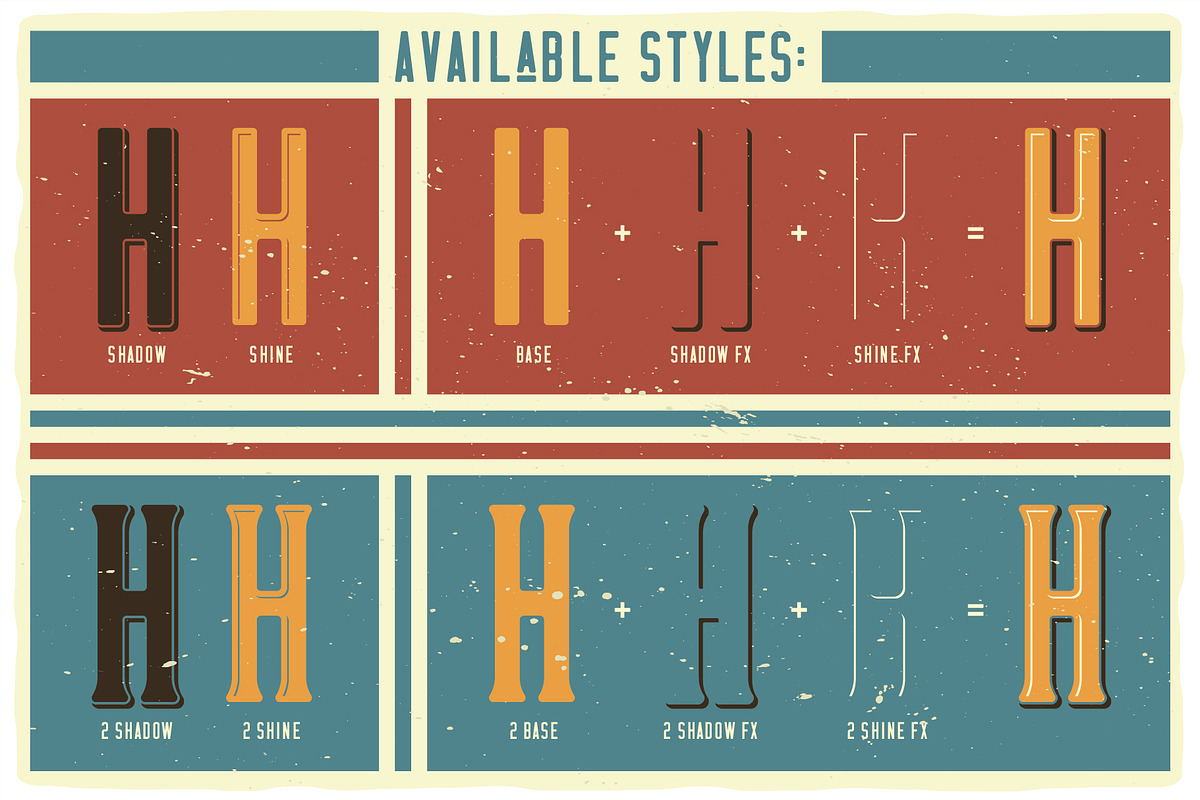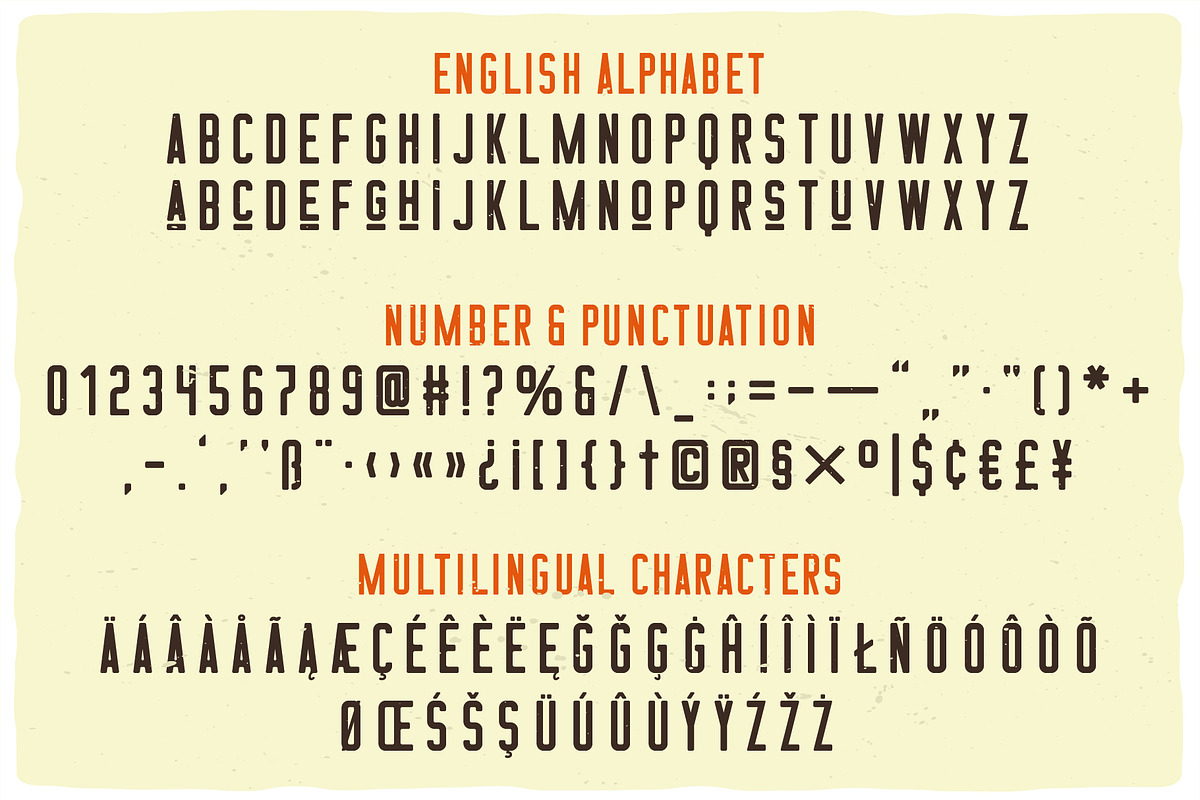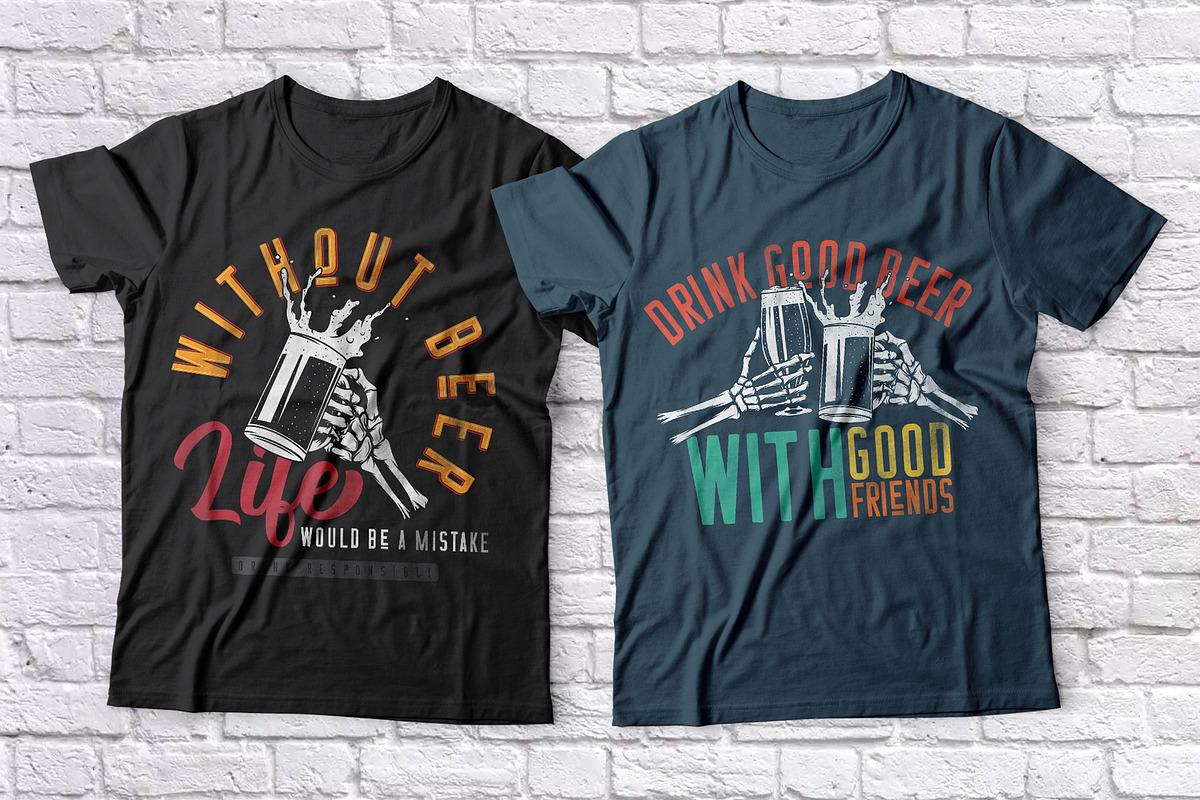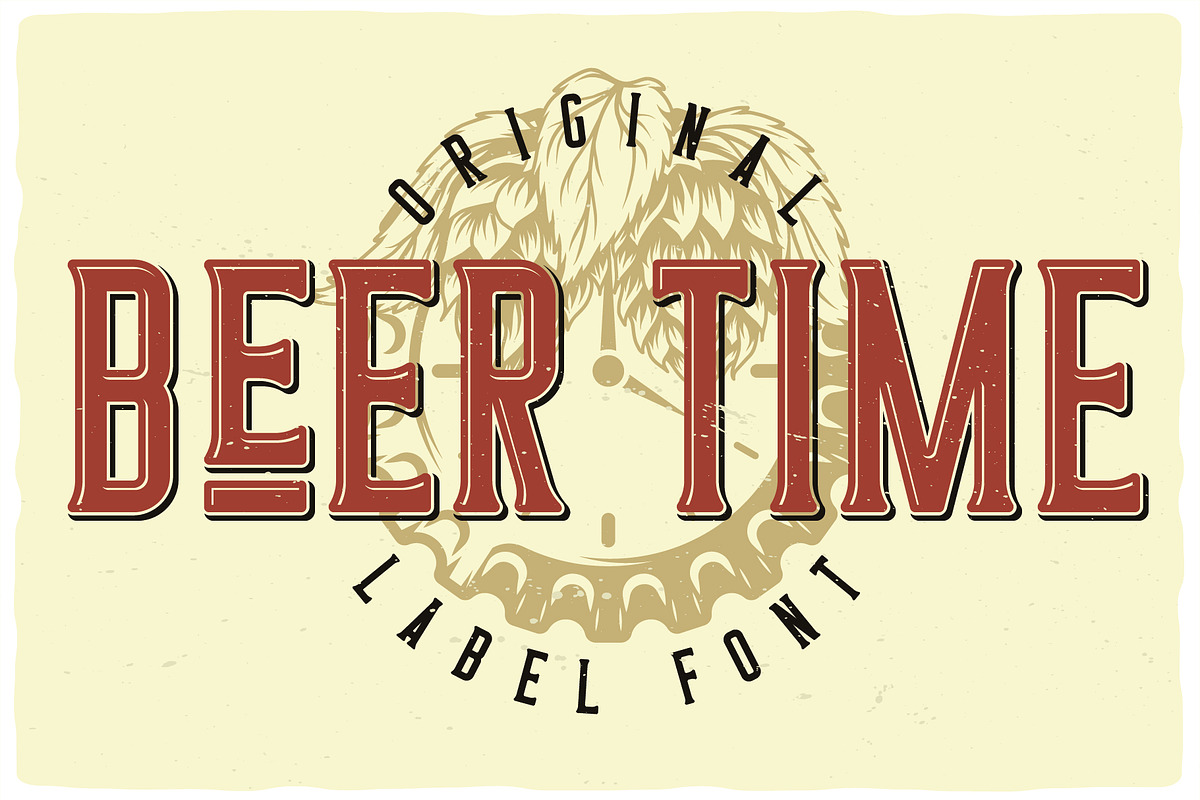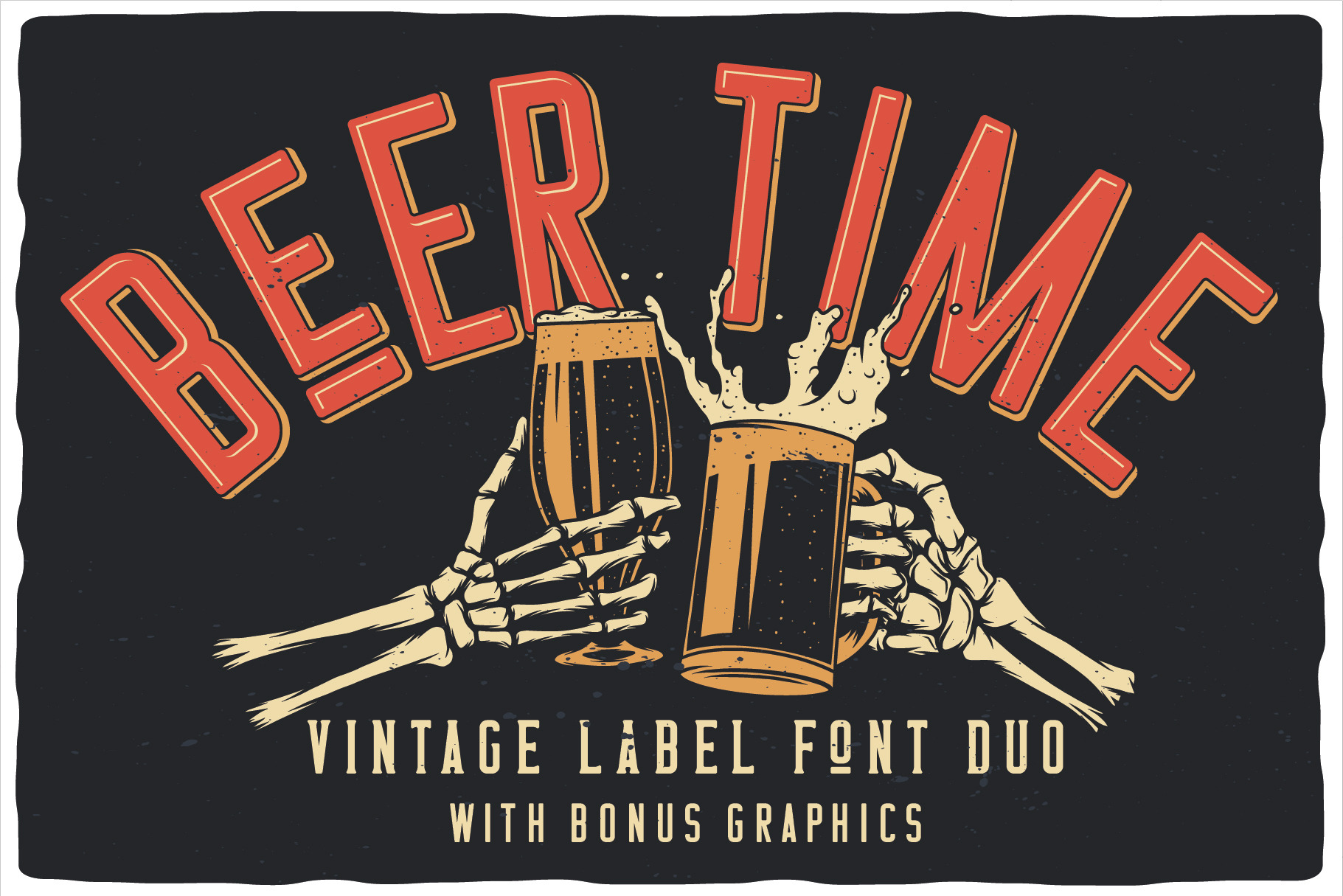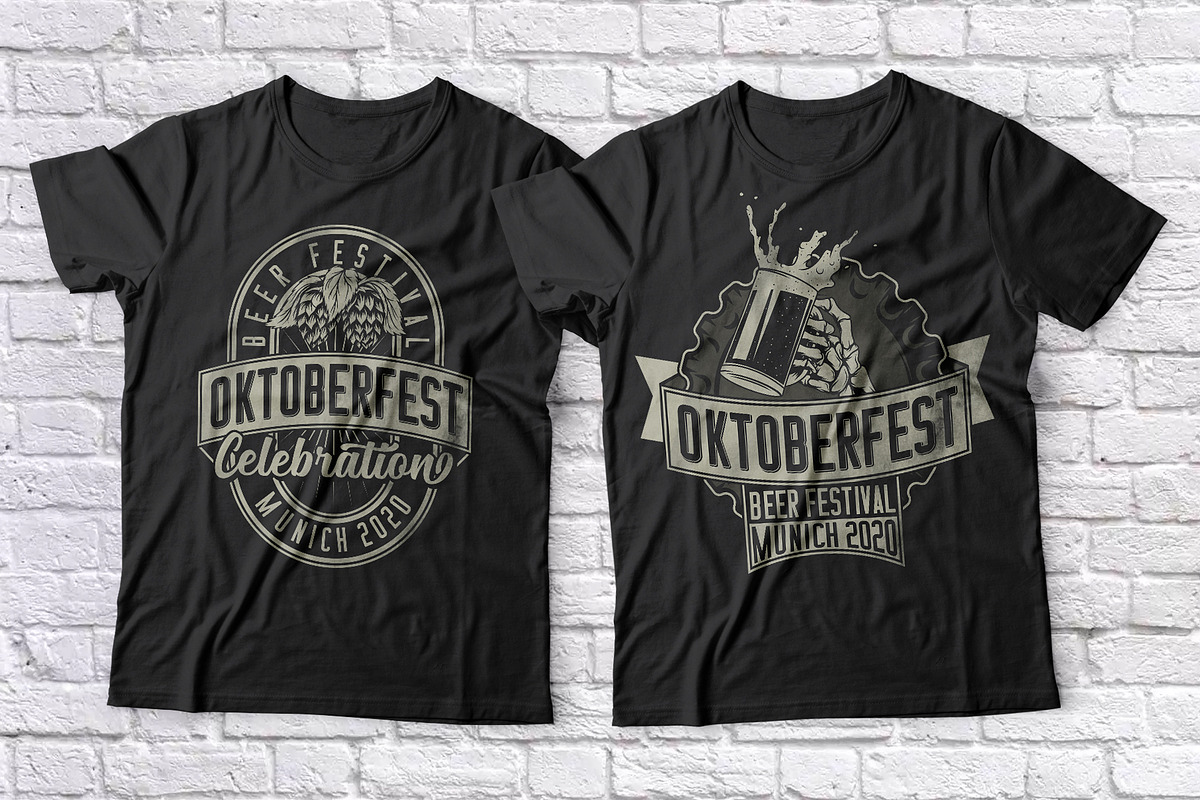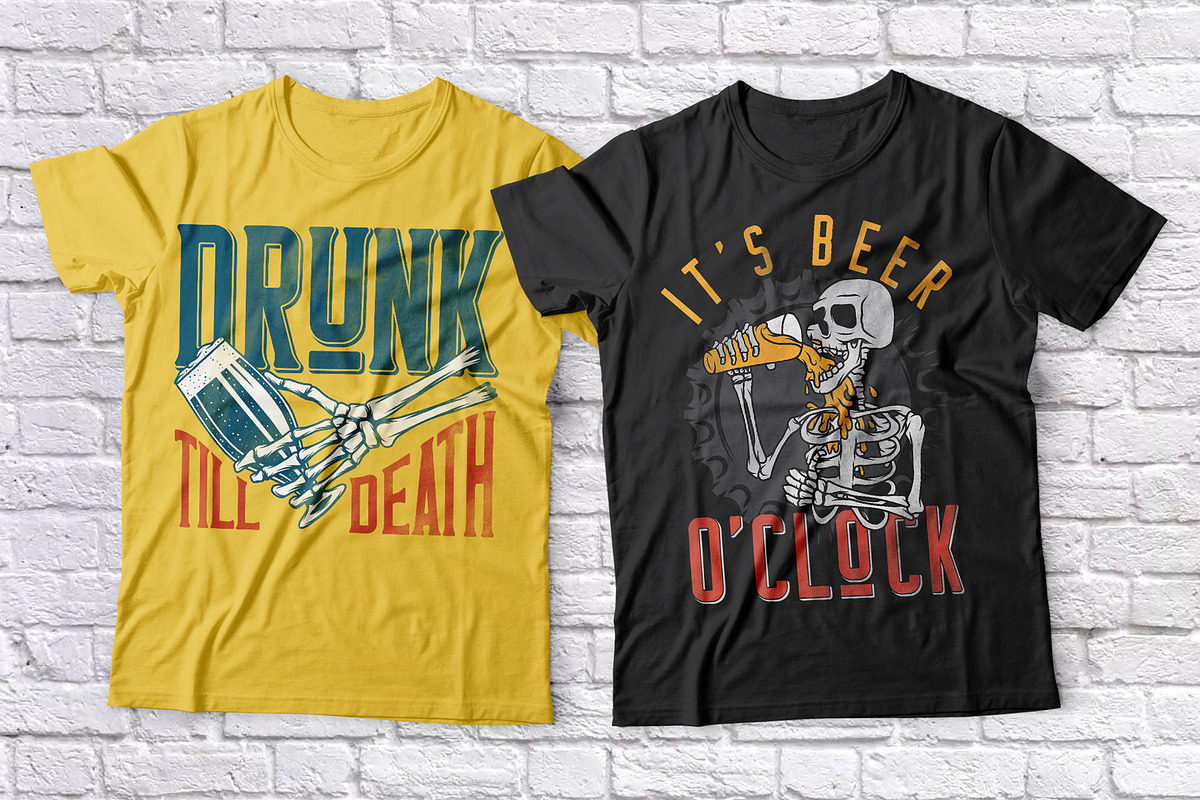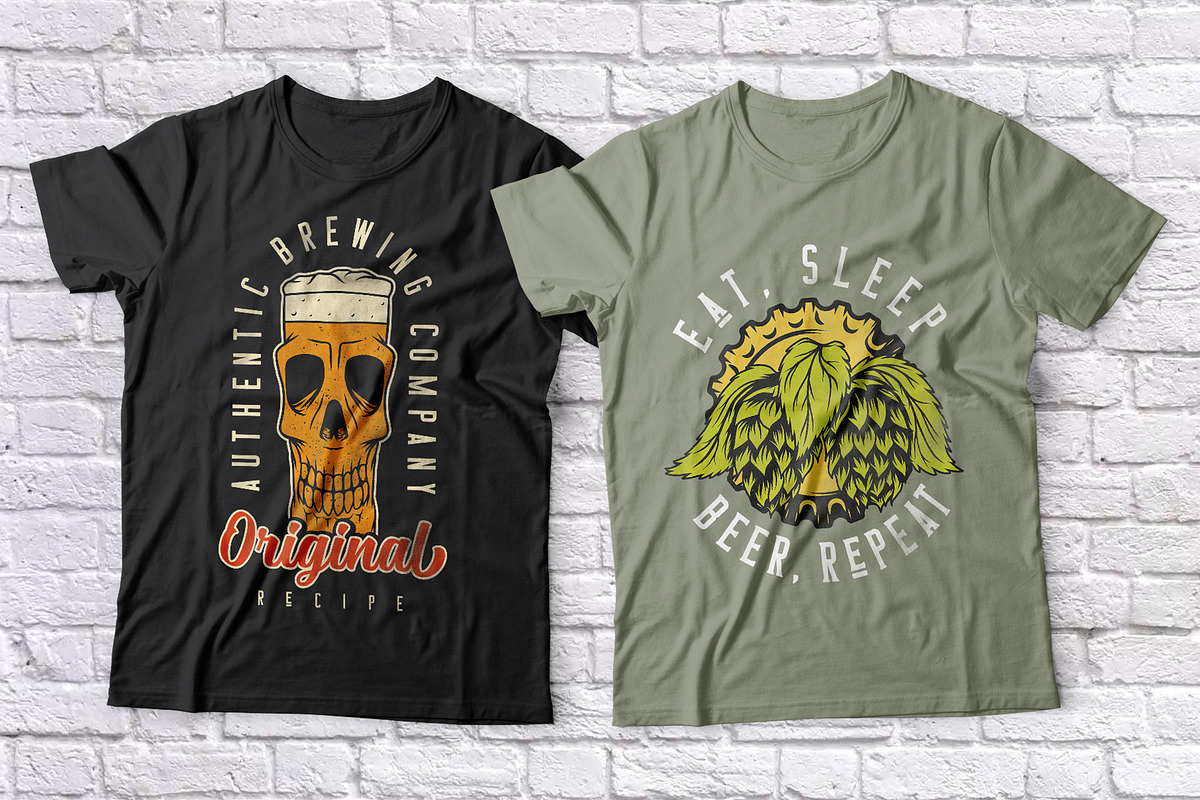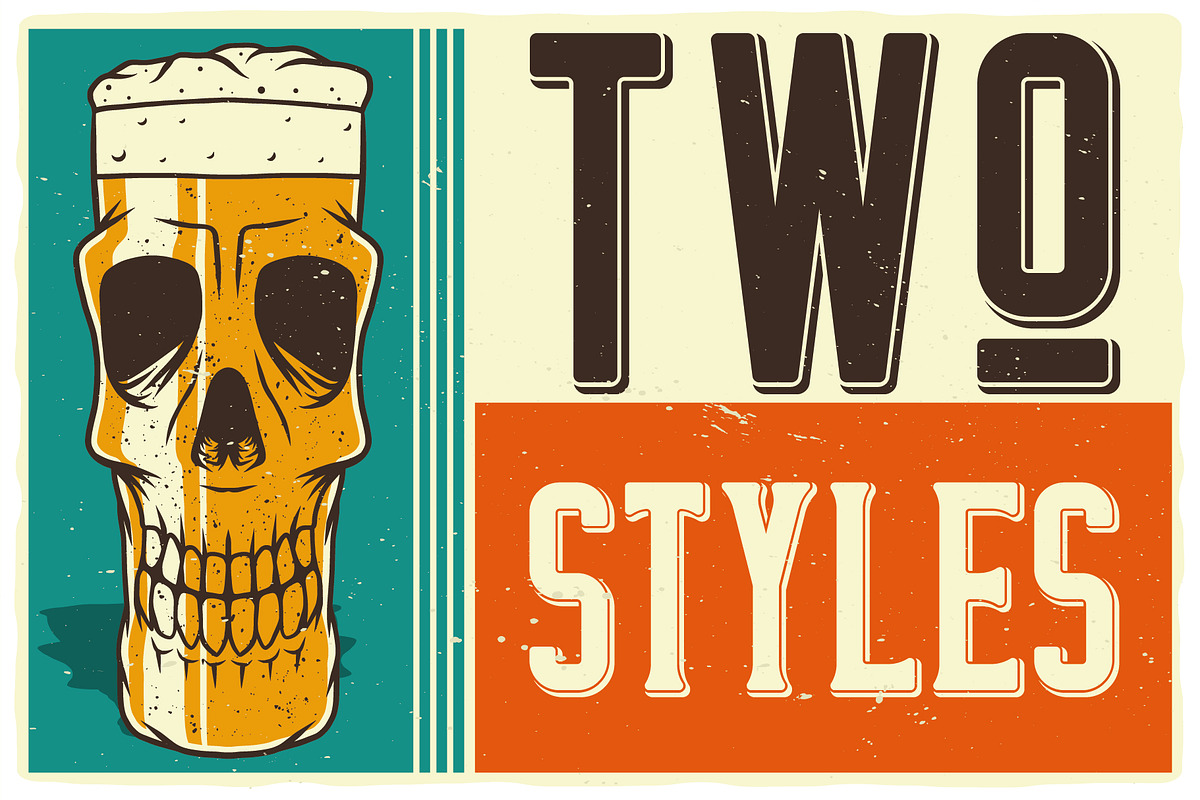
Beer Time Label Font
Introducing a vintage look label font named "Beer Time". All available characters you can see at the screenshot. This font have 2 basic styles (Serif and sans serif) and 4 effect styles for each. This font will good viewed on any retro design like poster, t-shirt, label, logo etc.
- A lot of additional characters and multilingual support